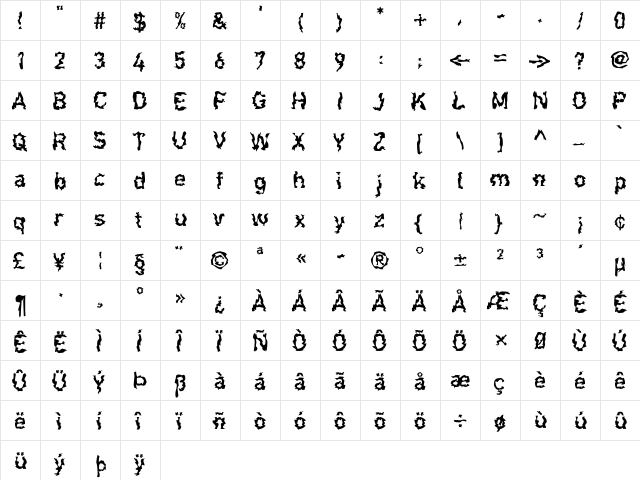
F2FShakkarakk LT Std Regular
| Foundry | Linotype Library GmbH |
| Designer | Thomas Nagel |
Design Context for F2FShakkarakk LT Std Typeface
F2FShakkarakk LT Std is a composed and adaptable typeface that performs quietly and consistently across a wide range of design contexts. Its slender proportions lend an understated elegance to any composition.